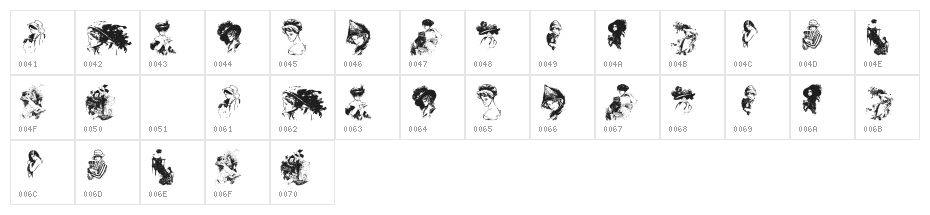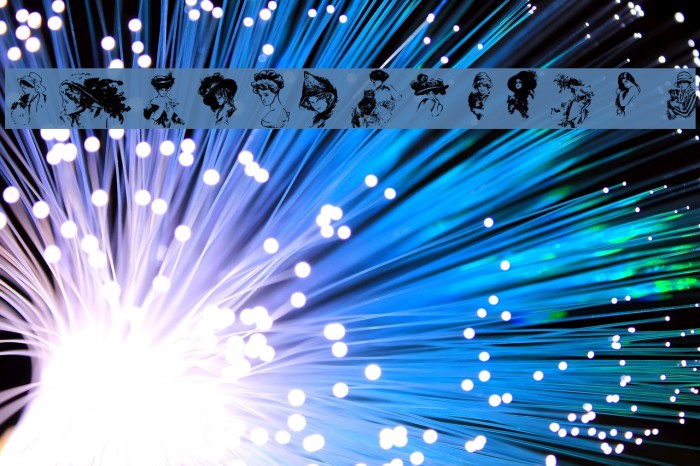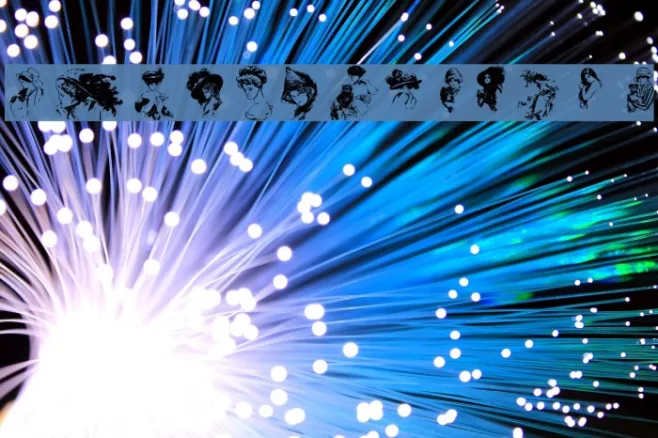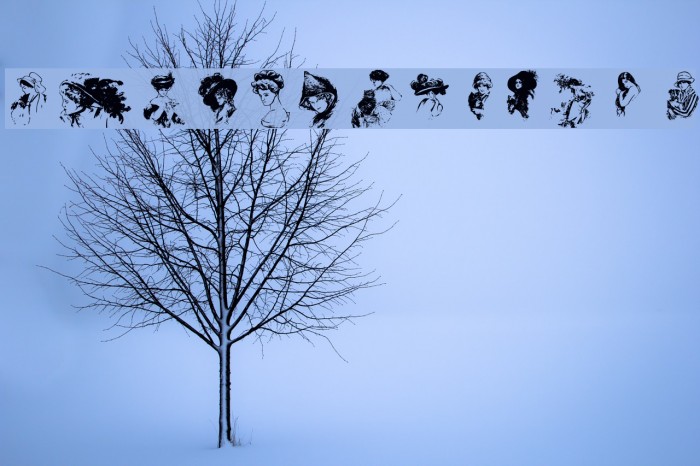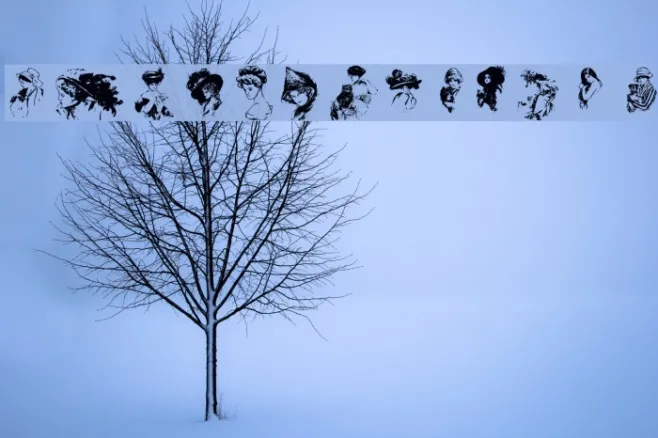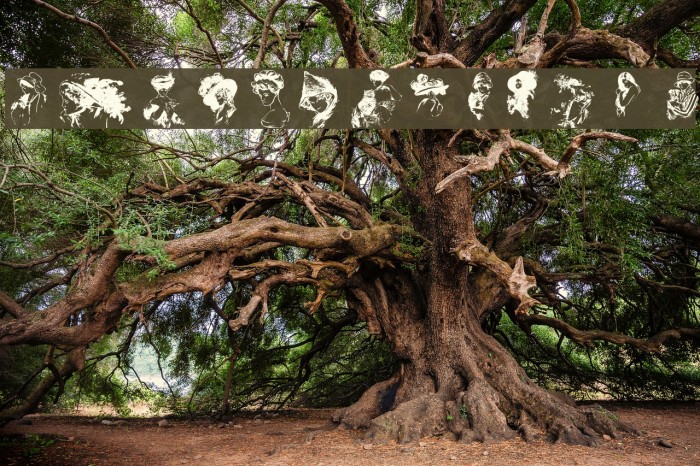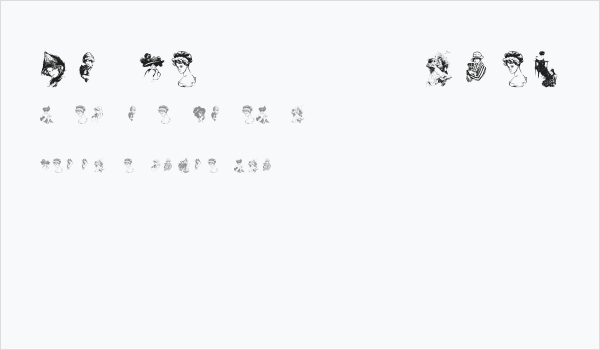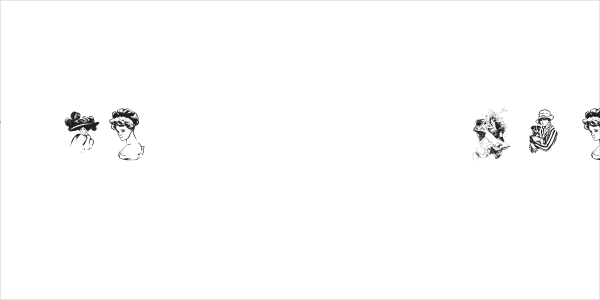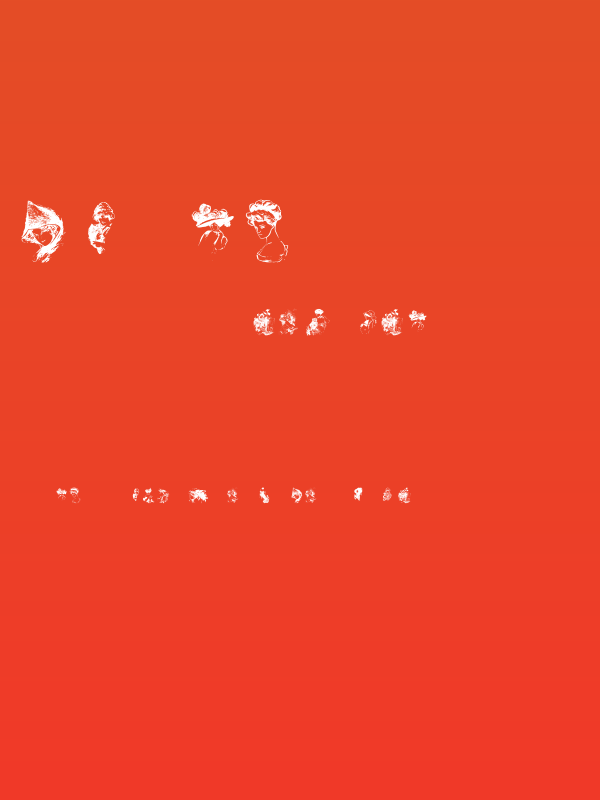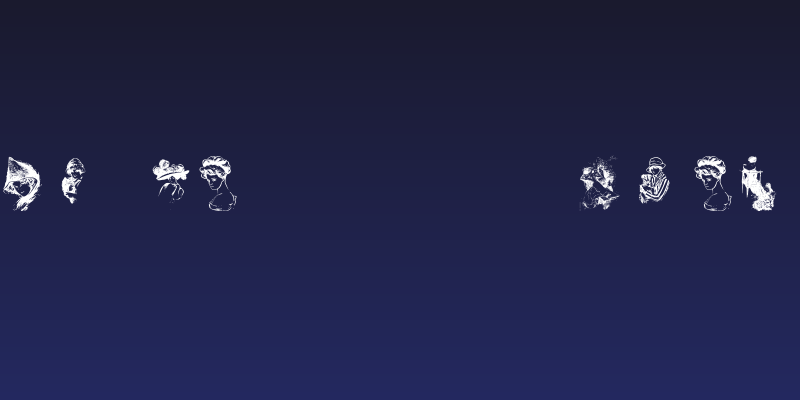
Fisher's Women Font
Fisher's Women Description
This is not a valid font. The image contains illustrations of women in various poses and styles, resembling vintage or historical portraits. Each character is represented by a different illustration, lacking the typical characteristics of a font such as uniformity in letter design and spacing.
| Use Case | Decorative illustrations, not suitable for text. |
| Proposed Projects | This set of illustrations could be used for decorative purposes in graphic design projects, such as vintage-themed posters or artistic collages. |